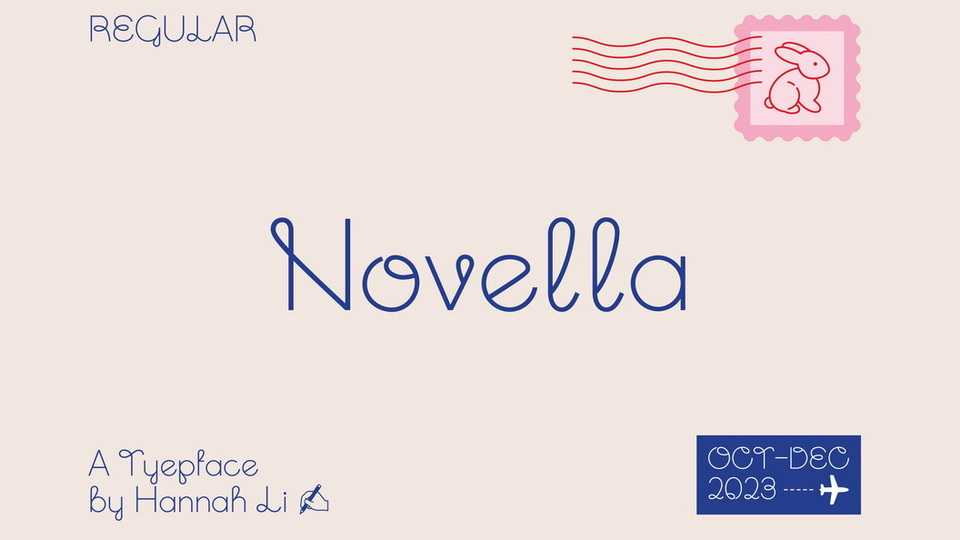
Download Novella font, a monolinear sans-serif display typeface. Its origin lies in a fascination with cursive workbooks, paying homage to the elegance of handwritten script.
Designer: Hannah Li